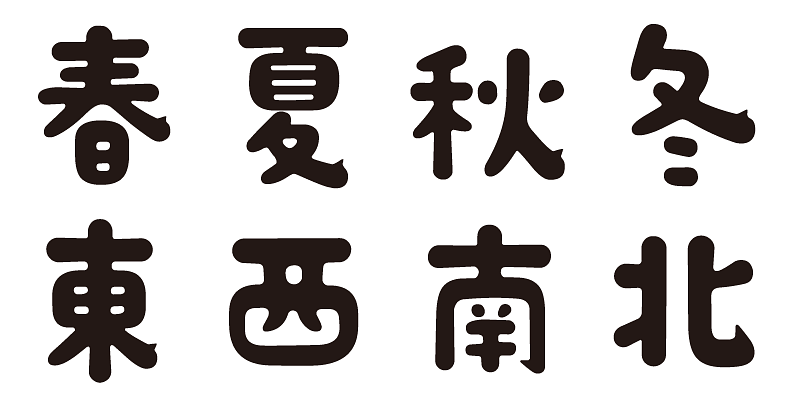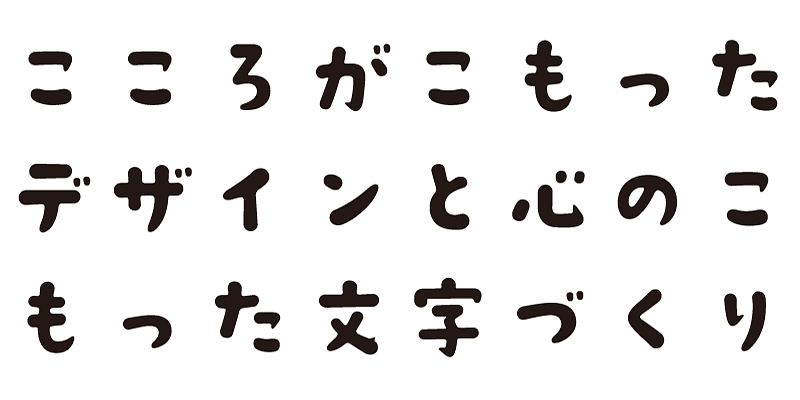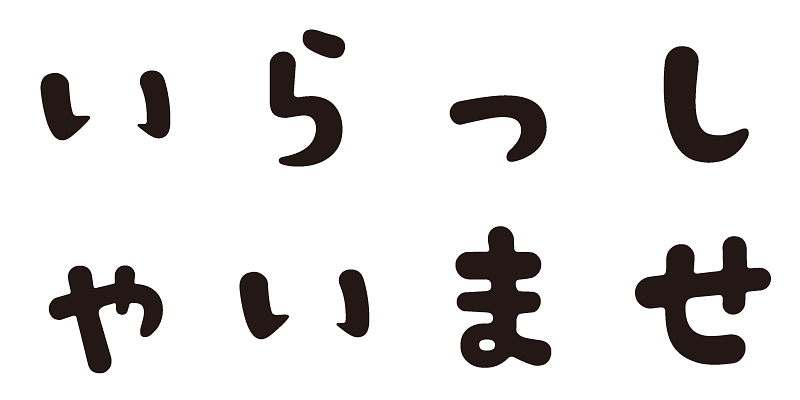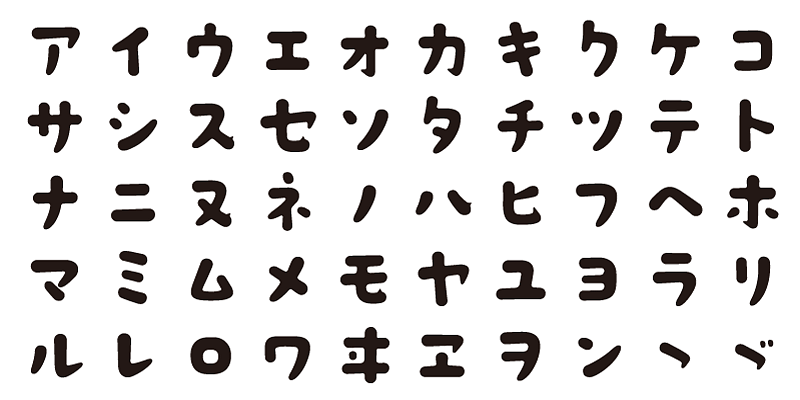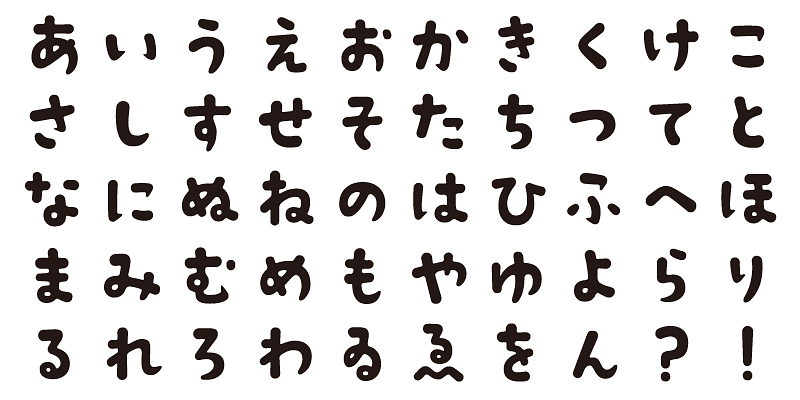
This typeface is charming and unique without being overly assertive, like a corydoras swimming in an aquarium.
This font includes 1,000 kanji characters, as well as hiragana, katakana, alphanumeric characters, and punctuation marks.
We design typefaces with the hope that they will add underlying meaning to words expressed. We wish the user to feel good and experience comfort and joy when using these typefaces.